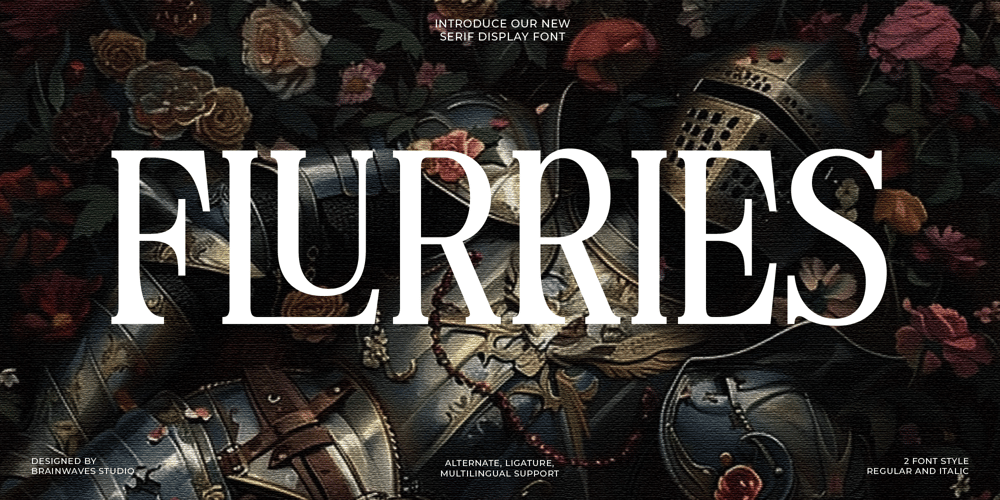
Flurries Serif Display Font Family was designed by Elhaq Farid and published by Brainwaves Studio. Flurries Serif Display contains 2 styles and family package options. Flurries is a modern serif font that strikes the perfect balance between boldness and elegance. Whether you’re designing for luxury brands, creating standout headlines, or adding a unique touch to your logos, Flurries has you covered. It’s versatile, stylish, and easy to use—perfect for bringing your creative ideas to life. Try Flurries and give your designs that extra edge they deserve!Ideal Use : Versatile Use – Editorial/Branding/Web DesignOpentype Features : Ligatures/Alternate CharactersStudio : Brainwaves StudioLocation : IndonesiaYear : 2024